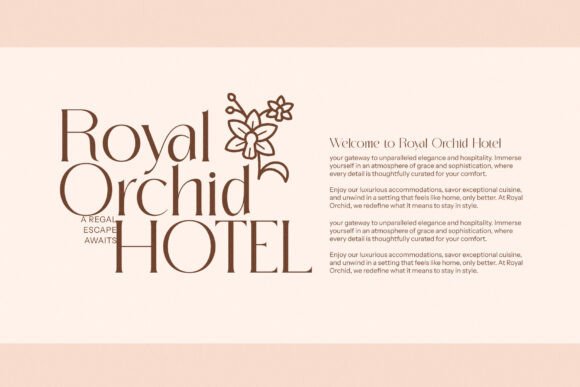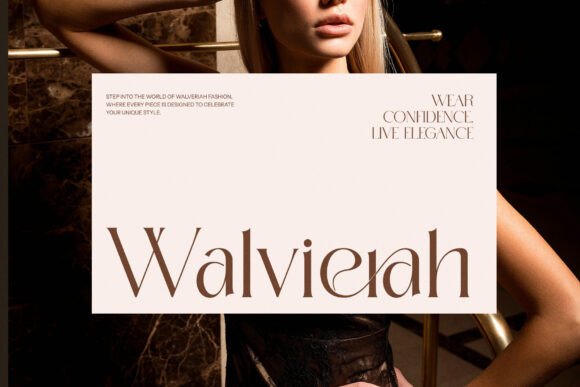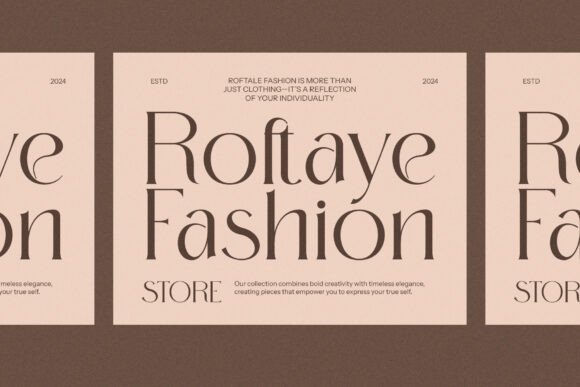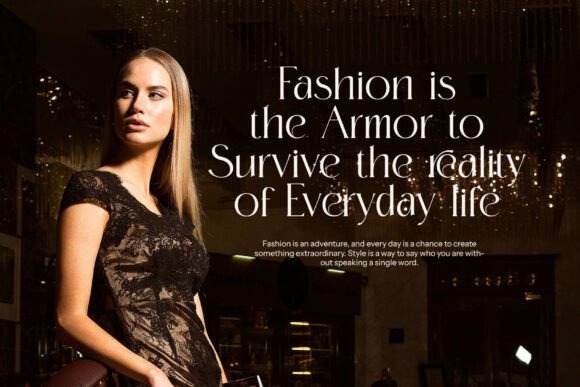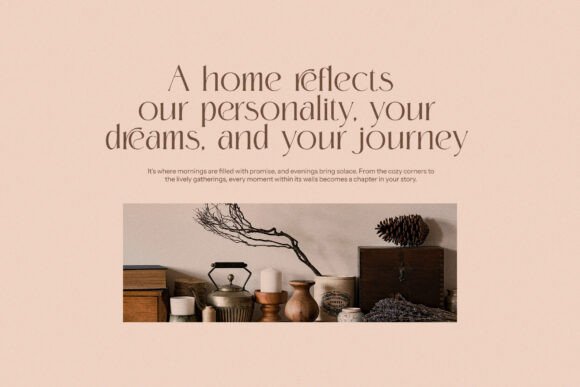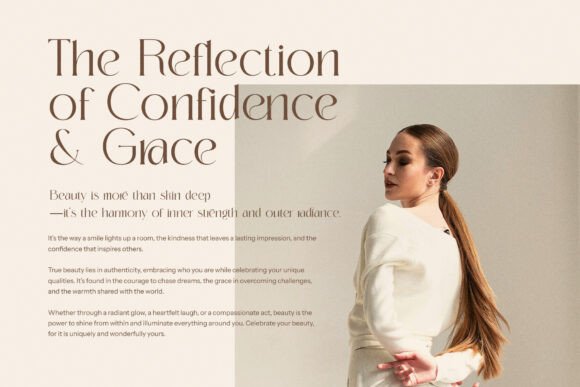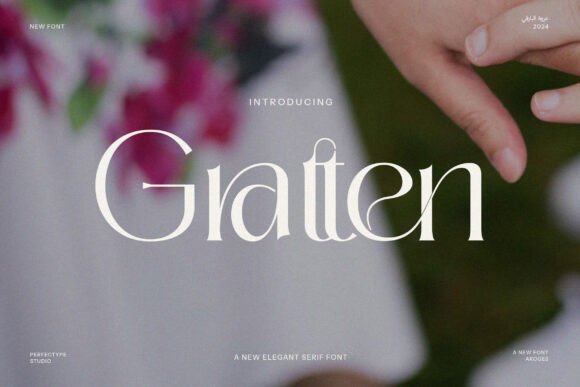
Gratten Elegant Serif Font: Elevate Your Designs with Timeless Sophistication
In the world of typography, a well-crafted font can make all the difference in elevating your designs from ordinary to extraordinary. Introducing Gratten Elegant Serif Font, a sophisticated and contemporary typeface that seamlessly blends timeless charm with modern flair. Designed with meticulous attention to detail, Gratten is the perfect choice for designers and crafters seeking to add a touch of luxury and refinement to their projects.
Refined Serifs and Clean Lines: The Hallmark of Gratten
Gratten’s refined serifs and clean lines are its defining features, setting it apart from other serif fonts. The font’s elegant structure and versatile letterforms make it an ideal choice for a wide range of applications, from magazine layouts and premium product packaging to high-end logos and upscale websites. Whether you’re designing for fashion, lifestyle, or corporate brands, Gratten brings an aura of sophistication that enhances the overall look and feel of your designs.
Distinct Ligatures and Alternate Characters: Add an Artistic Edge
What sets Gratten apart from other elegant serif fonts is its distinct ligatures and alternate characters. These artistic elements add an edge to your designs, ensuring that they stand out with both style and individuality. With Gratten, you can add a touch of personality to your projects, making them more engaging and memorable.
Ideal for Luxury Branding and High-End Projects
Gratten is specifically designed for luxury branding, high-end logos, and upscale websites. Its sophisticated and refined aesthetic makes it perfect for projects that require an elevated and polished look. Whether you’re working on a high-end fashion brand, a luxury product, or a premium service, Gratten provides the perfect typography solution.
Versatile and Adaptable: Suitable for Various Applications
Gratten’s versatility is one of its greatest strengths. This elegant serif font is not only ideal for digital and print media but also a great fit for boutiques, food branding, and various other applications. Its exquisite structure and versatile letterforms make it perfect for:
• Magazine layouts and editorials
• Premium product packaging and labeling
• Attention-grabbing advertisements and marketing materials
• Luxury branding and high-end logos
• Upscale websites and digital platforms
• Boutiques and fashion brands
• Food branding and culinary projects
Why Choose Gratten Elegant Serif Font?
With so many fonts available, why choose Gratten? Here are just a few reasons why Gratten stands out:
• Sophisticated and refined aesthetic: Gratten’s elegant structure and refined serifs make it perfect for luxury branding and high-end projects.
• Distinct ligatures and alternate characters: Add an artistic edge to your designs with Gratten’s unique ligatures and alternate characters.
• Versatile and adaptable: Gratten is suitable for various applications, from digital and print media to boutiques and food branding.
• Elevate your designs: With Gratten, you can add a touch of sophistication and elegance to your designs, making them more engaging and memorable.
In conclusion, Gratten Elegant Serif Font is a sophisticated and contemporary typeface that is perfect for designers and crafters seeking to add a touch of luxury and refinement to their projects. With its refined serifs, clean lines, distinct ligatures, and alternate characters, Gratten is ideal for luxury branding, high-end logos, upscale websites, and various other applications. Whether you’re designing for fashion, lifestyle, or corporate brands, Gratten provides a sense of sophistication that enhances the overall look and feel of your designs.